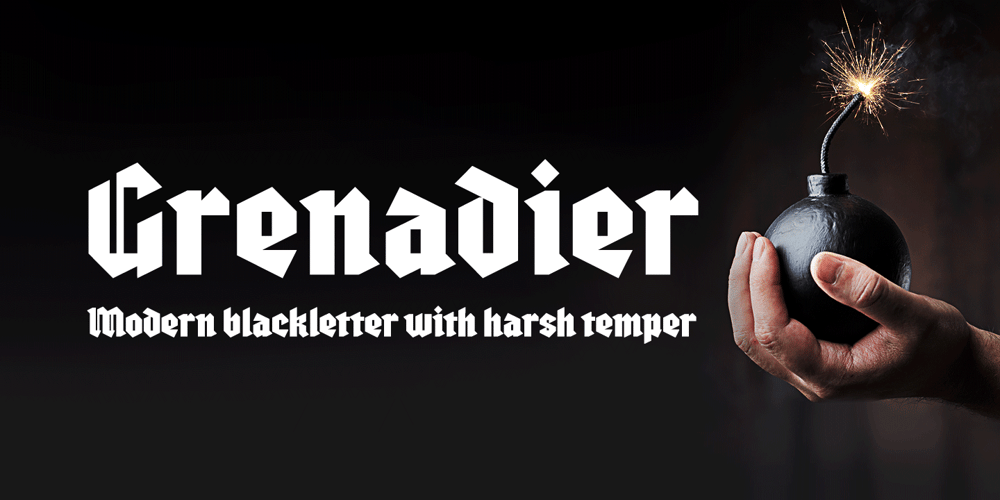
Grenadier Font Family was designed by Alexey Timokhovsky and published by Alexey Timokhovsky. Grenadier contains 1 styles and family package options. Grenadier font is based on historic blackletter forms, carefully reviewed and modernized. It got bright temper with harsh notes. Very good for packaging, branding and large sized typesetting. Grenadier has Latin and Cyrillic sets with an equal attention to details.